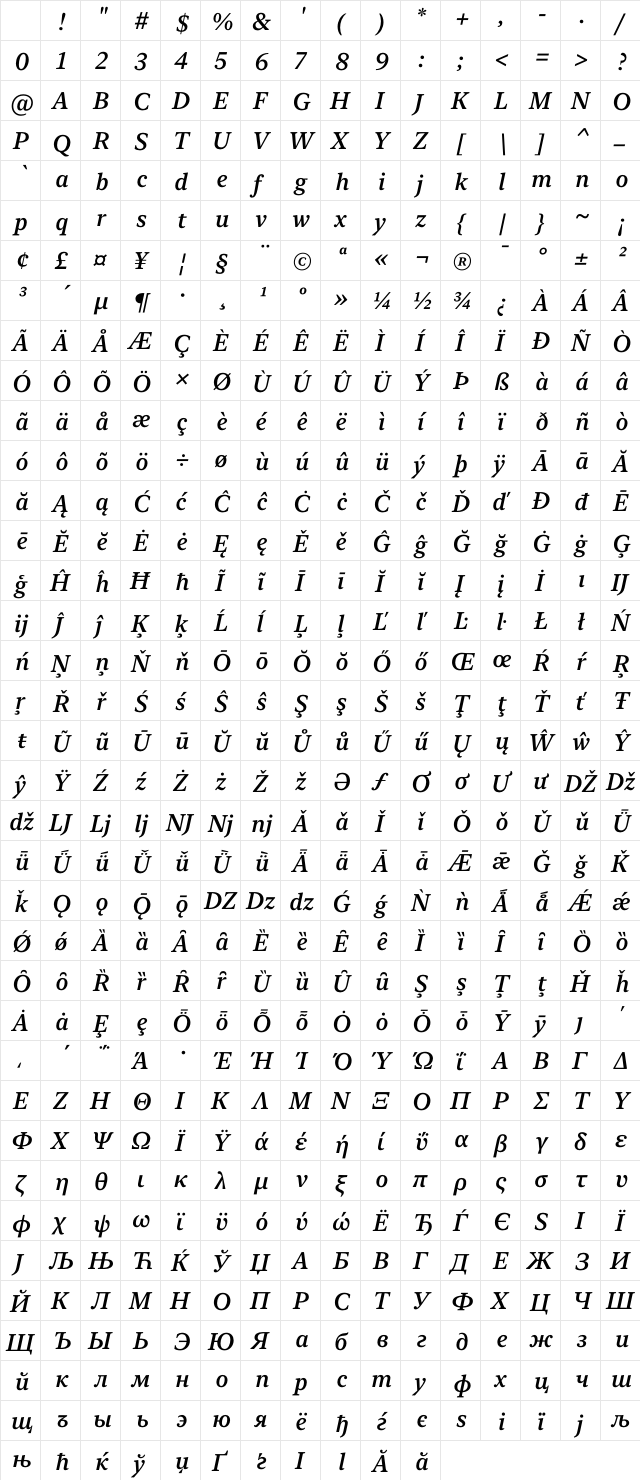
New York Small Medium Italic
Foundry: Apple Inc.
Designer: Apple Inc.
New York Small Family
New York Small Medium Italic
Complete New York Small Medium Italic glyph index. Displaying only characters natively supported by New York Small Medium Italic font.
Design Context for New York Small
New York Small is a composed and adaptable typeface that performs quietly and consistently across a wide range of design contexts. The slanted form adds forward momentum and visual energy.
Pro Tip: Use New York Small for emphasis, pull quotes, and subheadings where its slanted energy can add rhythm to the layout.